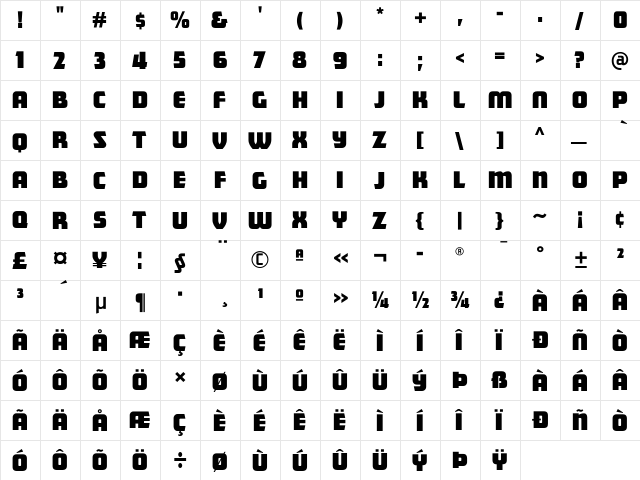
Matinee-Gothic Regular
Design Context for Matinee-Gothic Typeface
Matinee-Gothic has the quiet confidence of well-executed sans-serif typography: versatile, unobtrusive, and dependable at any size.
Font Pairing: Works well alongside a characterful serif or display font that can carry the expressive load while Matinee-Gothic handles the functional copy.
Pro Tip: Use Matinee-Gothic for UI labels, navigation, and short-form body copy where clean legibility is the priority.